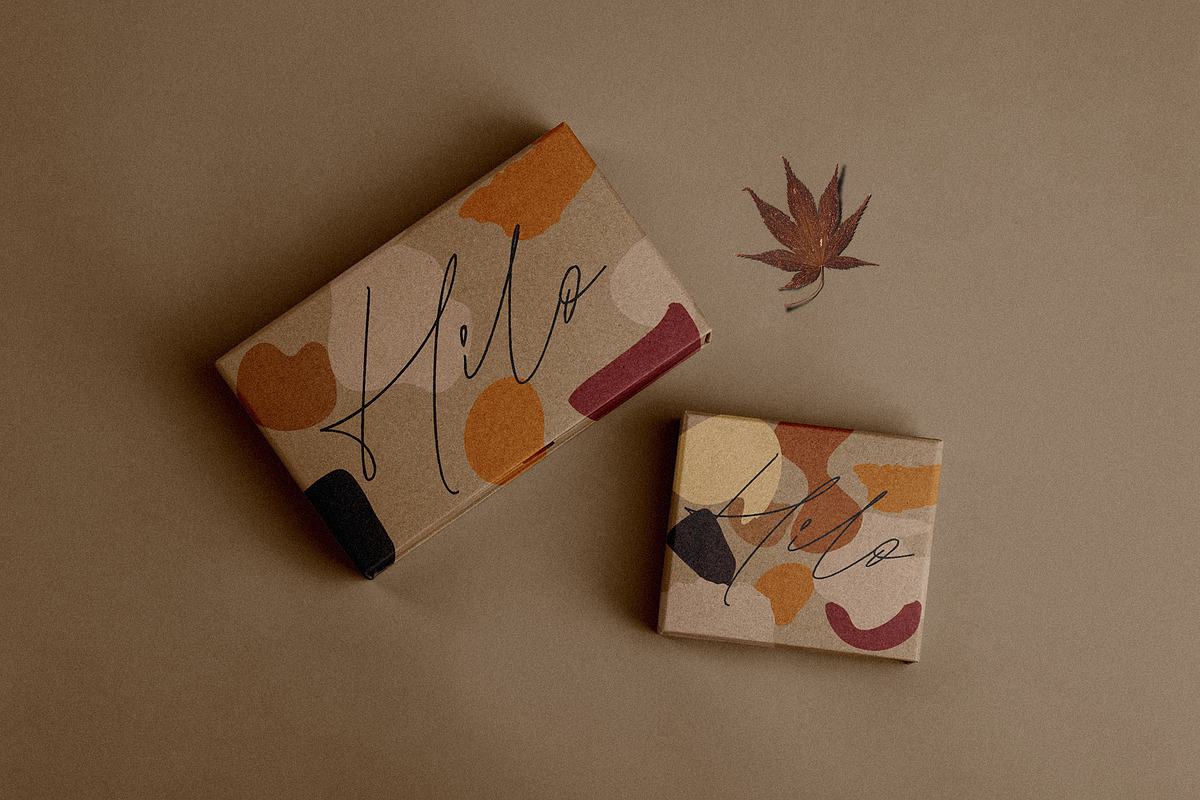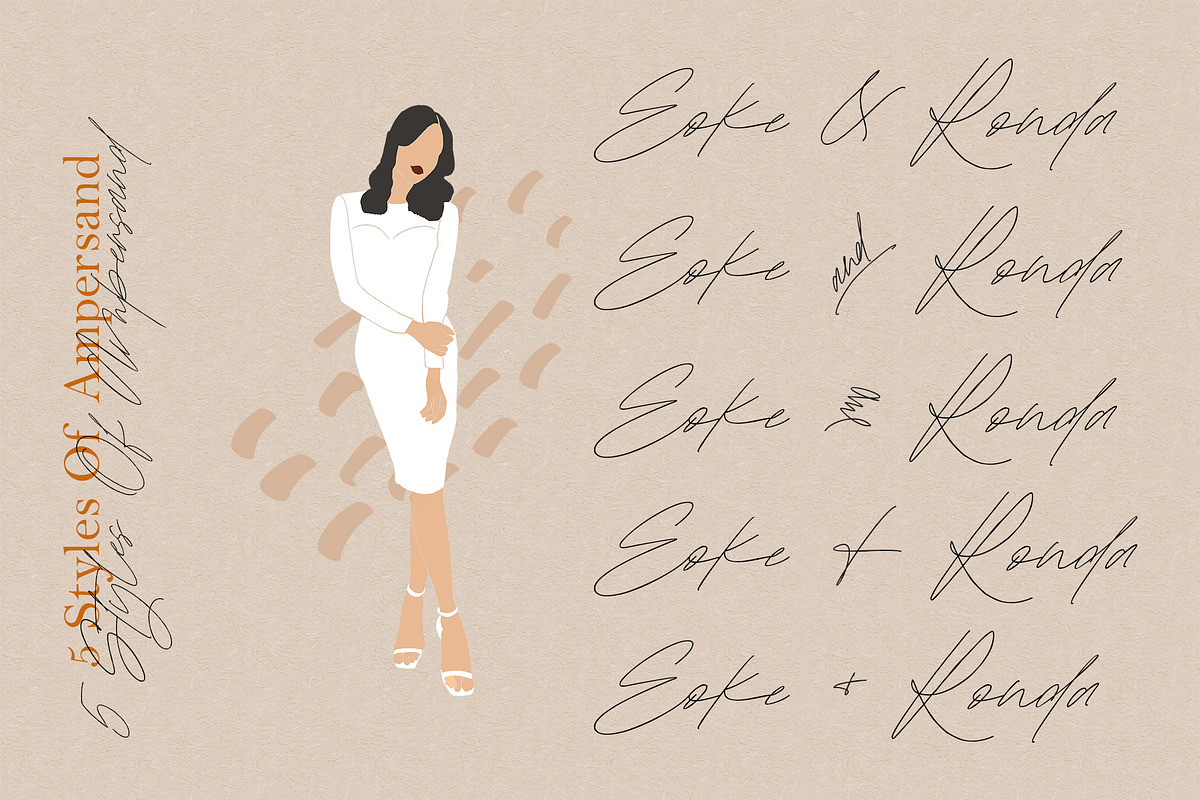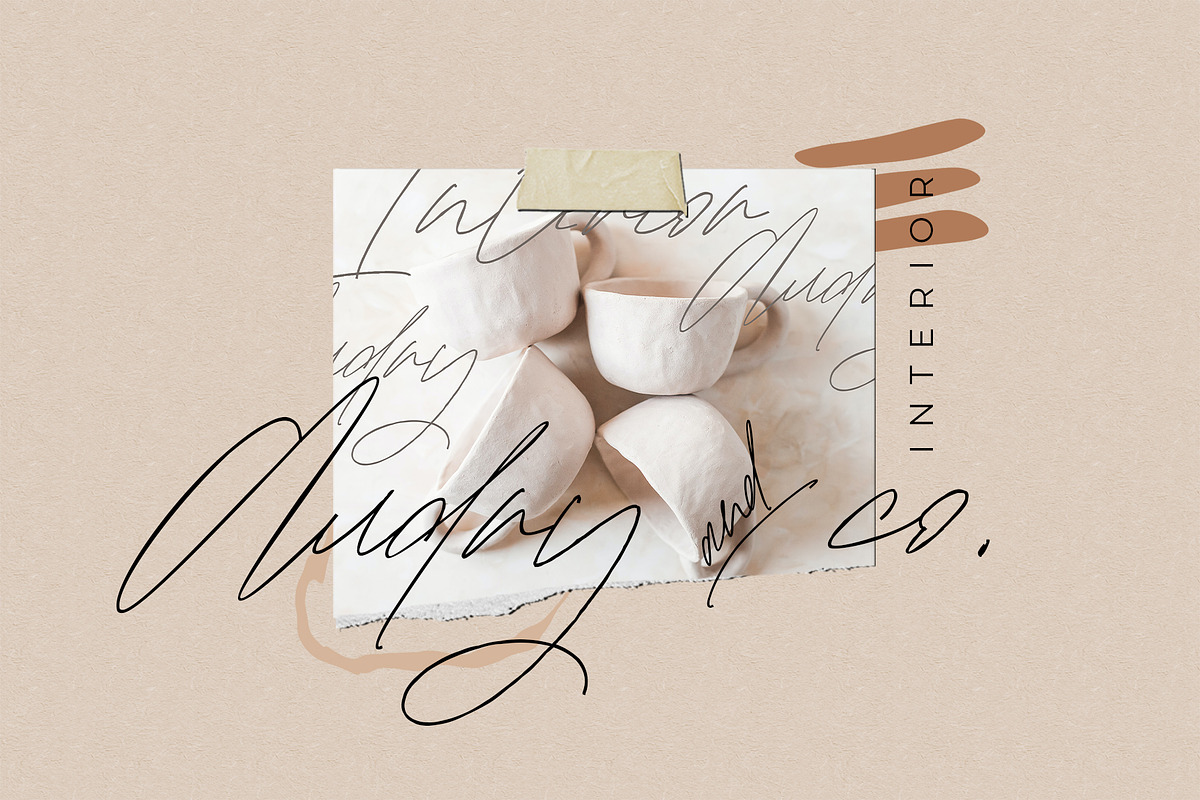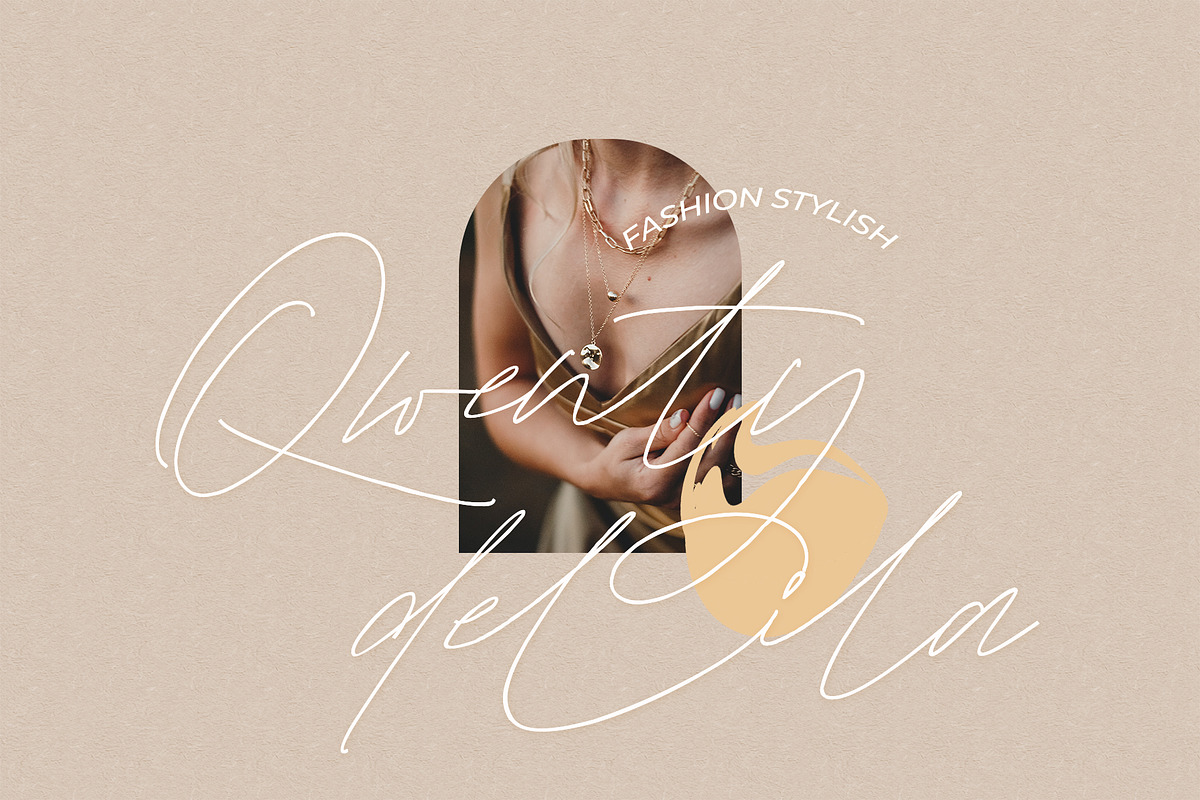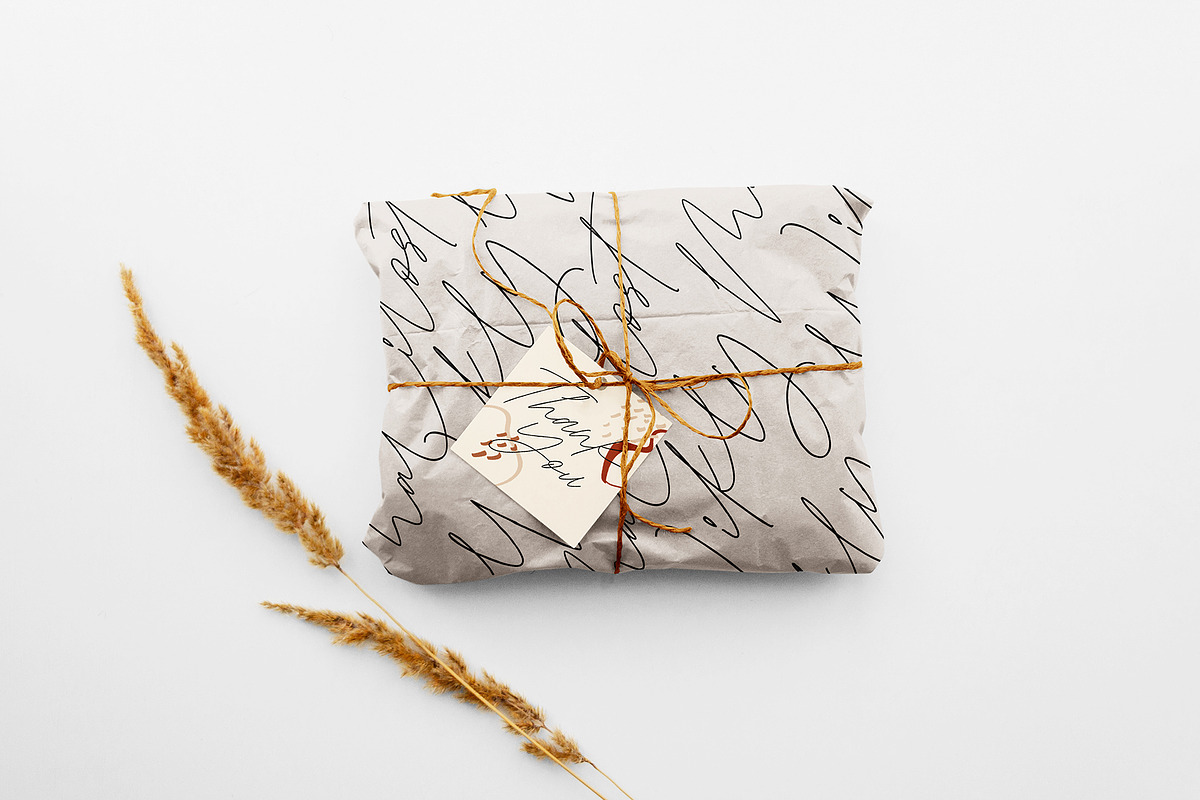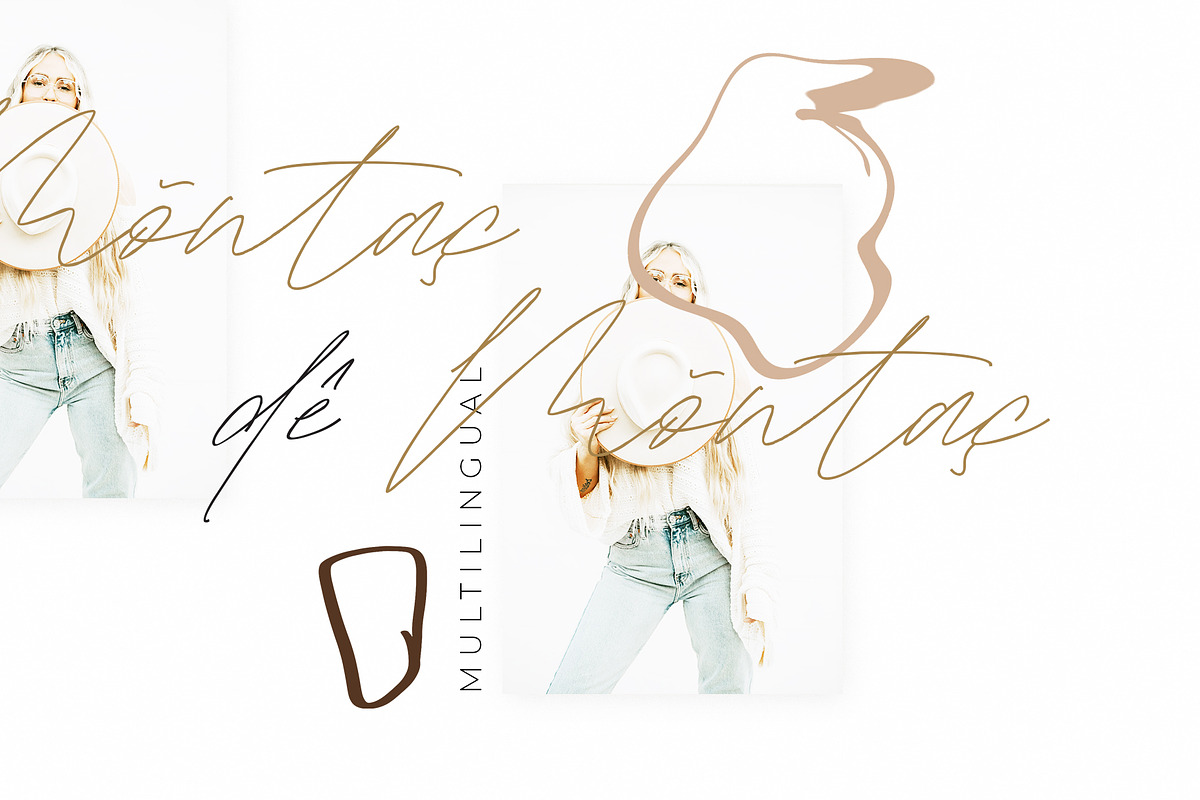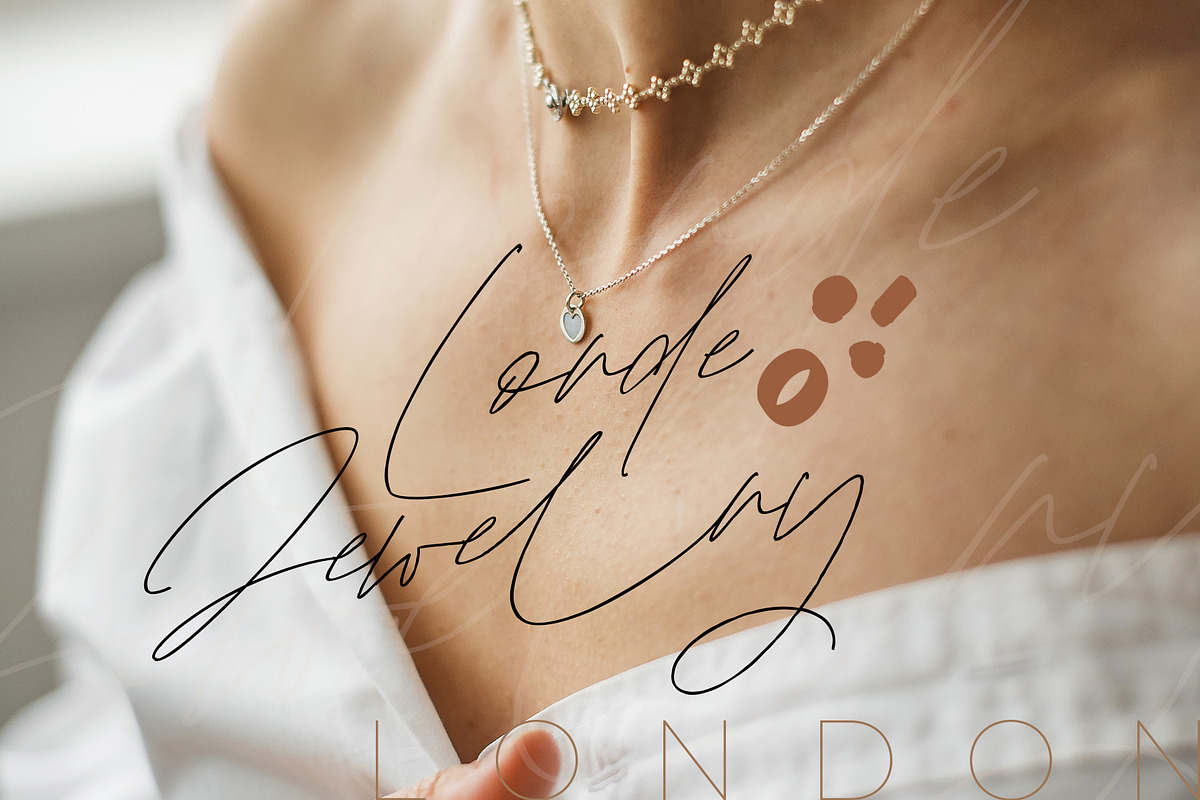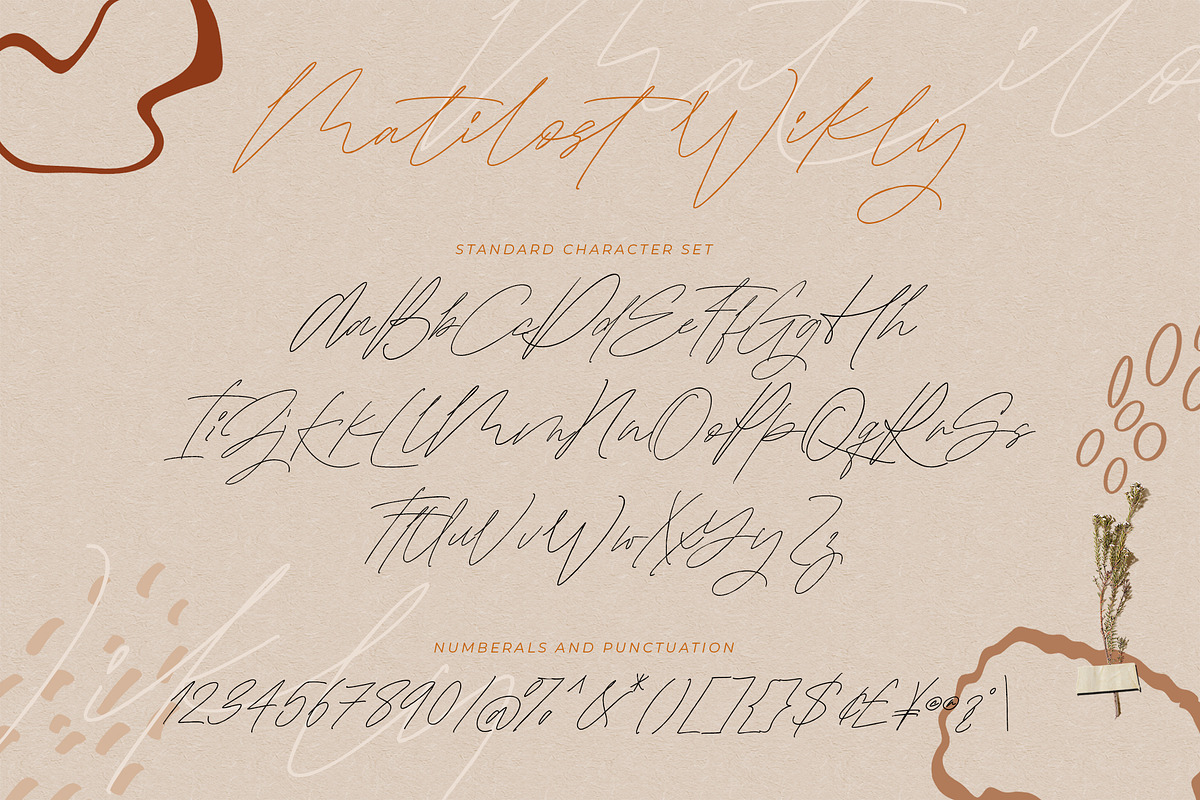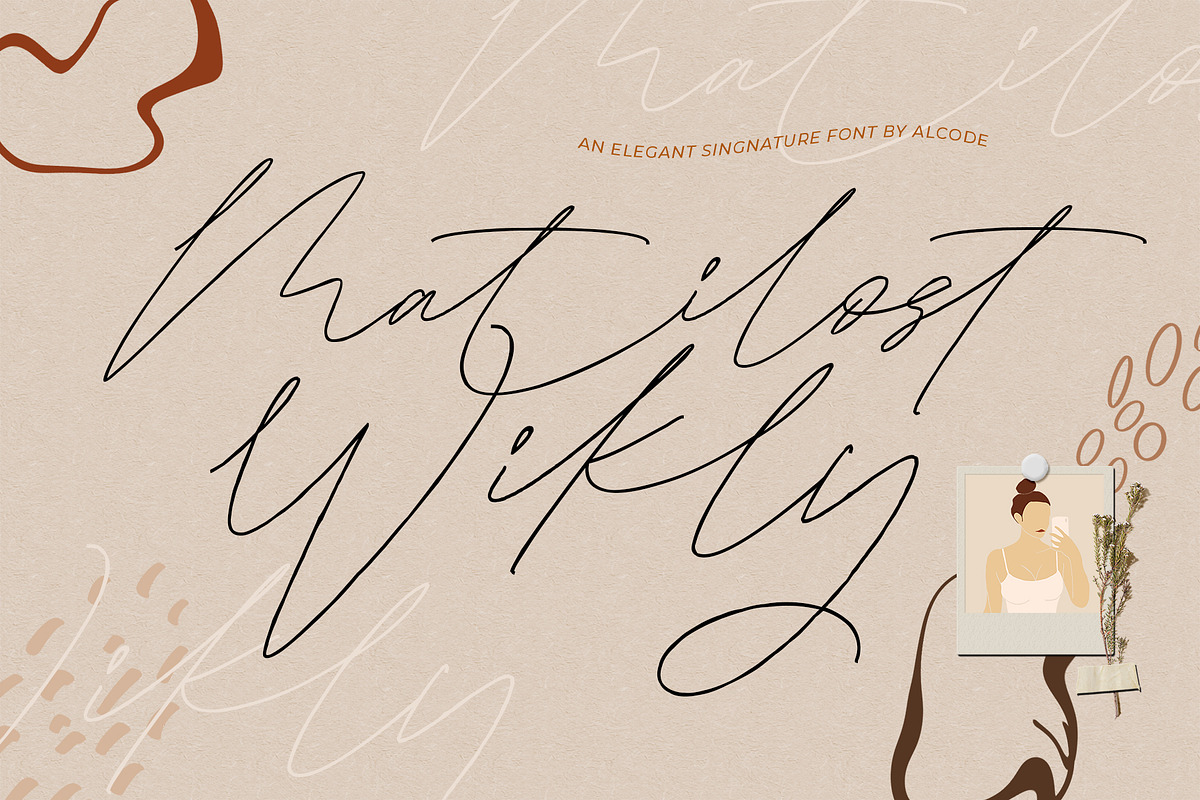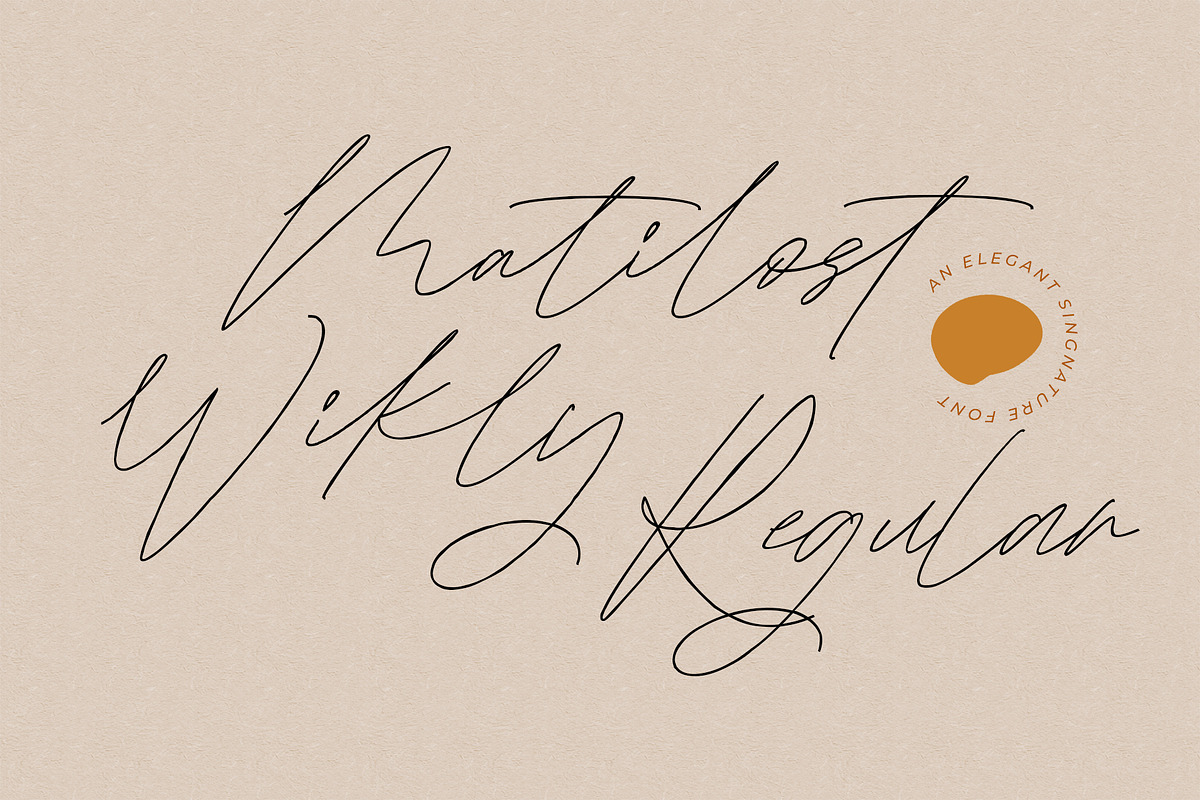
Matilost Wikly
Matilost Wikly is an elegant handwitten fontinspired by natural brush typography. Written in rapid motion using a slightly dry brush pen. This will give you a fresh and elegant design. Matilost Wikly comes with uppercase and lowercase letters, large sets and small sets, numbers, alternative styles for several lowercase characters are also available that make your text and design more attractive.
Try Matilost Wikly, enjoy the richness of OpenType features and let her fun and elegant excitement make you happy and enhance your creativity! You can use this font very easily.
- Included multilingual support and special ligatures